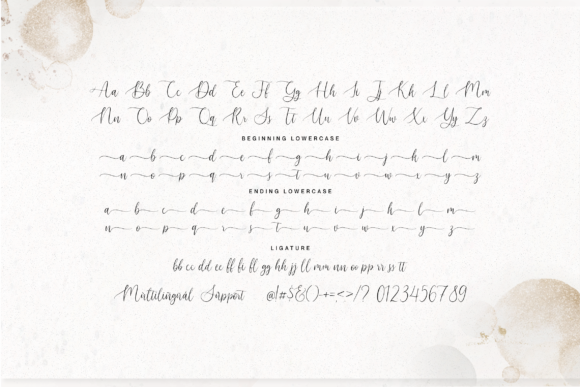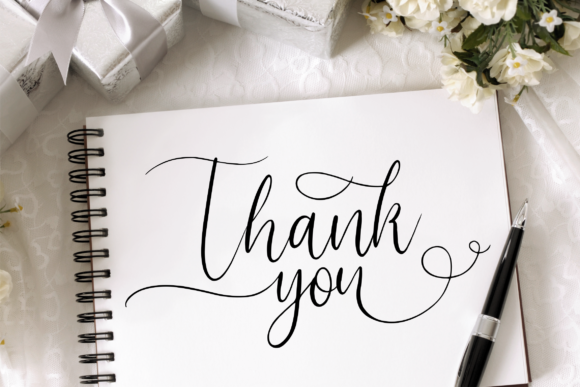
About Val Edeline Font
Val Edeline is a lovely and delicate script font that exudes elegance and class. This font was particularly crafted for those who need a beautiful and refreshing look to their designs.